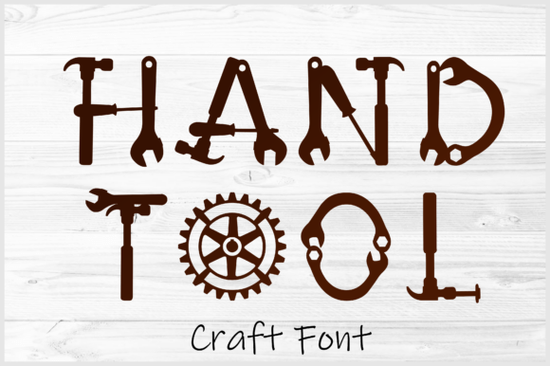
If you're looking for a decorative typeface that feels authentically handmade not just styled to look that way the Hand Tool Font is worth your attention. It’s not a script or a distressed sans serif pretending to be rustic. Instead, each letter is built from real tool silhouettes: hammers, wrenches, gears, saw blades, and screwdrivers arranged with care to form legible, expressive characters. That makes it especially useful if you design for makers think personalized toolboxes, workshop signs, craft fair banners, or DIY gift tags.
What kind of projects work best with this font?
This isn’t a font you’d use for body text or long paragraphs. It shines where impact and intention matter more than readability at small sizes. Think of it as a visual shorthand for craftsmanship. You’ll see it used well on:
- Wooden or metal signs for garages, sheds, or maker spaces
- Custom engraving on tools, aprons, or workshop gear
- SVG-cut vinyl decals for mugs, t-shirts, or tote bags sold on print-on-demand platforms
- Logos for small businesses like custom furniture makers, welding shops, or repair services
- Invitations or labels for craft kits, woodworking classes, or maker-themed events
How does it compare to other decorative fonts on Creative Fabrica?
It stands apart from options like the Dog Love Font, which leans into playful pet-themed charm, or the Polka Dot Duo Font, built for light, rhythmic patterns. Unlike the candy-colored Sugar Pop Font, or the delicate floral framing of the Floral Heartly Monogram Font, the Hand Tool Font carries physical weight literally, in its shapes. If your audience values authenticity over polish, this font communicates skill, effort, and hands-on process in a single glance.
Who actually uses this font and why?
We’ve seen it used by small hardware store owners updating their window signage, Etsy sellers making “Build It Yourself” kits, and educators designing classroom posters for shop class. One customer told us they laser-cut the letters from steel sheeting and mounted them on a garage wall each character doubled as both text and sculpture. Another used the PNG files to mock up branded stickers for a subscription box focused on hand tools and restoration guides.
That versatility comes from thoughtful design not gimmickry. The spacing is adjusted so letters don’t visually compete, and the lowercase “a,” “e,” and “g” are designed to read clearly even when scaled down to ~1.5 inches tall (great for small tool tags). It’s also kerned for common word pairings like “WRENCH,” “TOOL,” and “MADE.”
- Pair thoughtfully use a clean, neutral sans serif (like Montserrat or Open Sans) for supporting text so the Hand Tool Font stays the focal point.